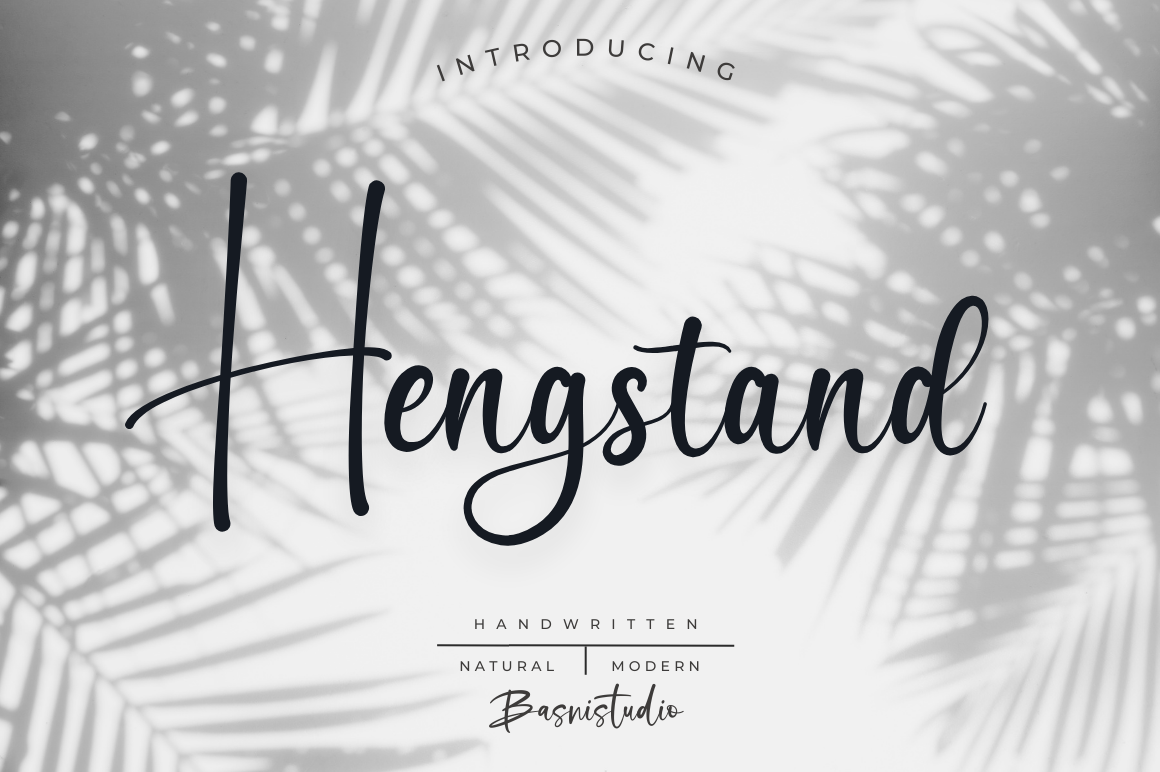
Hengstand Handwritten Font
Introducing Hengstand Handwritten Font
Hengstand Handwritten Font , made with Naturaly & precision, perfect for branding, websites, and editorial designs. Includes all Characters letters, multilingual support, punctuation, binding. everything can be easily accessed using software that supports OpenType. What’s include: